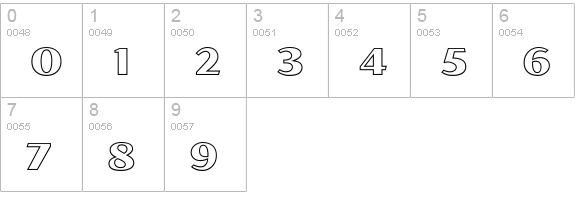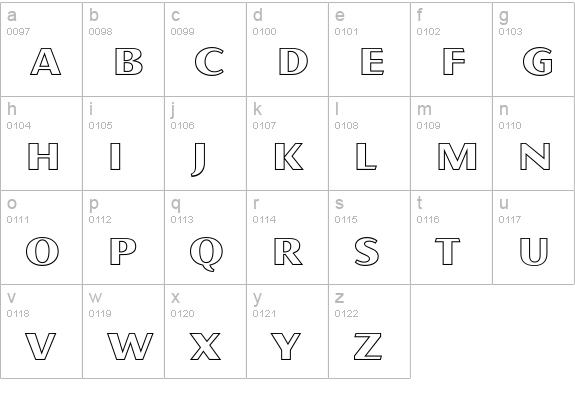
PFMagnet Open Font Details
PFMagnet Open is a modern and stylish font that exudes a sense of energy and creativity. With its clean lines and geometric shapes, this typeface is perfect for projects that require a contemporary and dynamic look. The font features a unique open design that adds a touch of sophistication to any design. What makes PFMagnet Open even more appealing is that it is available for free download at FontsMarket.com. This means that you can easily access this versatile font without any cost, making it a valuable addition to your font collection. Whether you're working on branding, advertising, or any other design project, PFMagnet Open is sure to elevate your work with its bold and distinctive appearance. Don't miss out on the opportunity to enhance your designs with PFMagnet Open – download it for free today at FontsMarket.com and unleash your creativity!